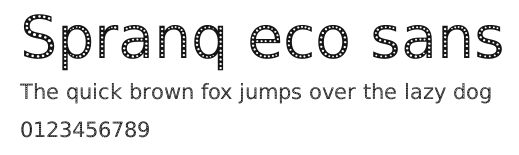
Spranq eco sans Preview
• Font Name: Spranq eco sans
• Designer: Designed by Spranq on base of the Bitstream Vera font family
• Manufacturer: Bitstream Inc.
About Spranq eco sans.ttf
Spranq eco sans.ttf is a modern, elegant sans-serif font designed for ultimate readability and visual harmony. Perfect for branding, headlines, web design, and print materials.